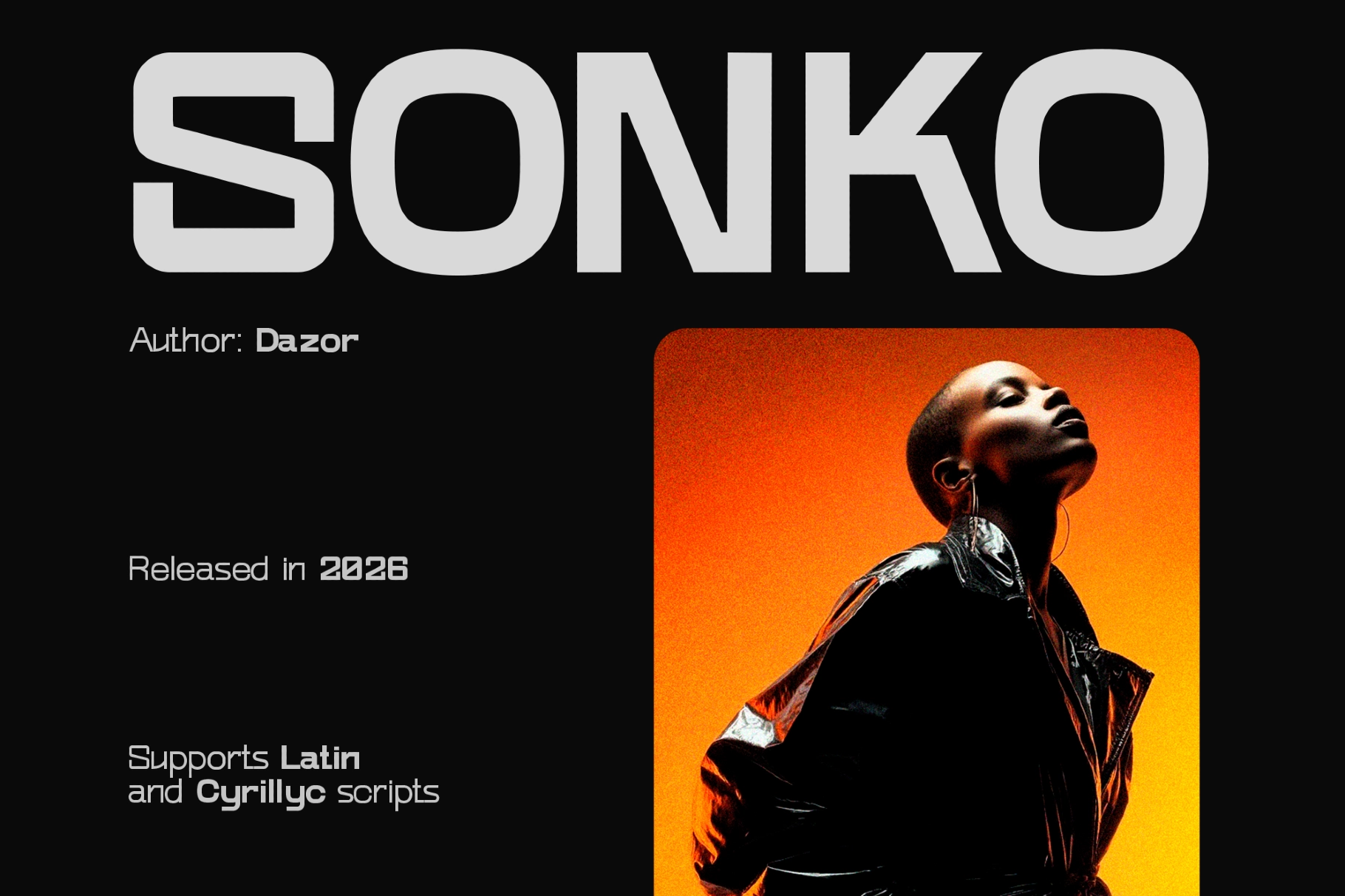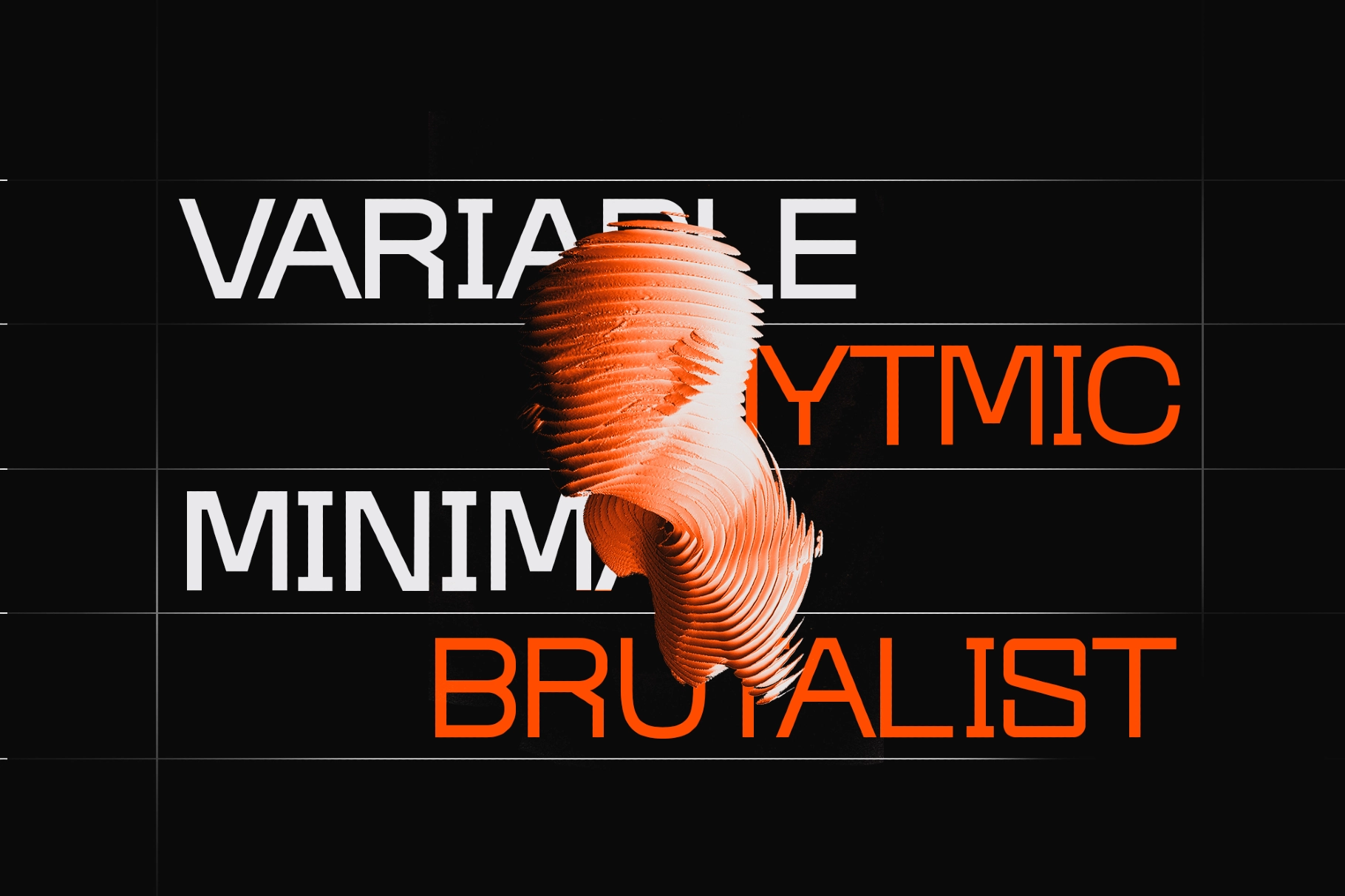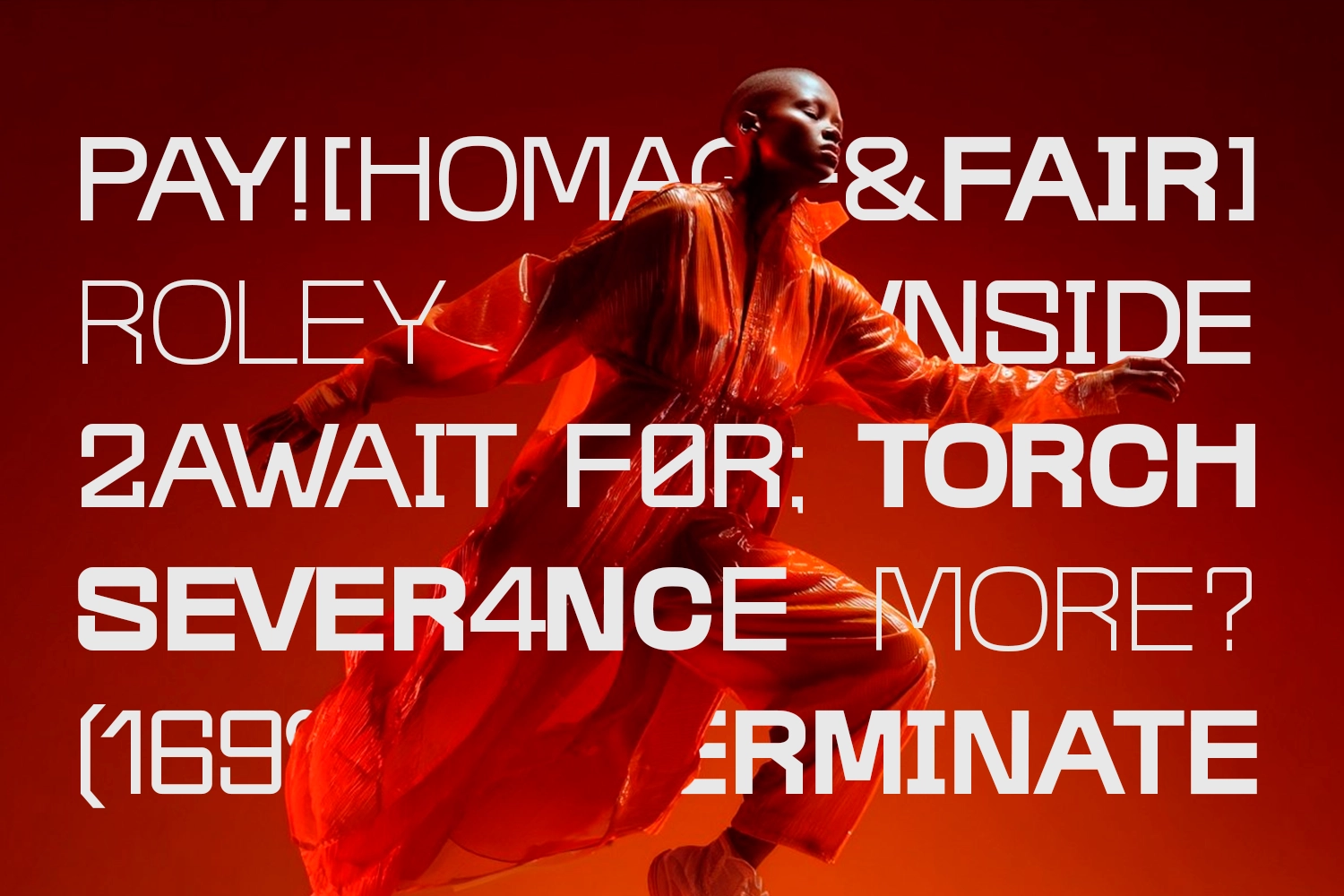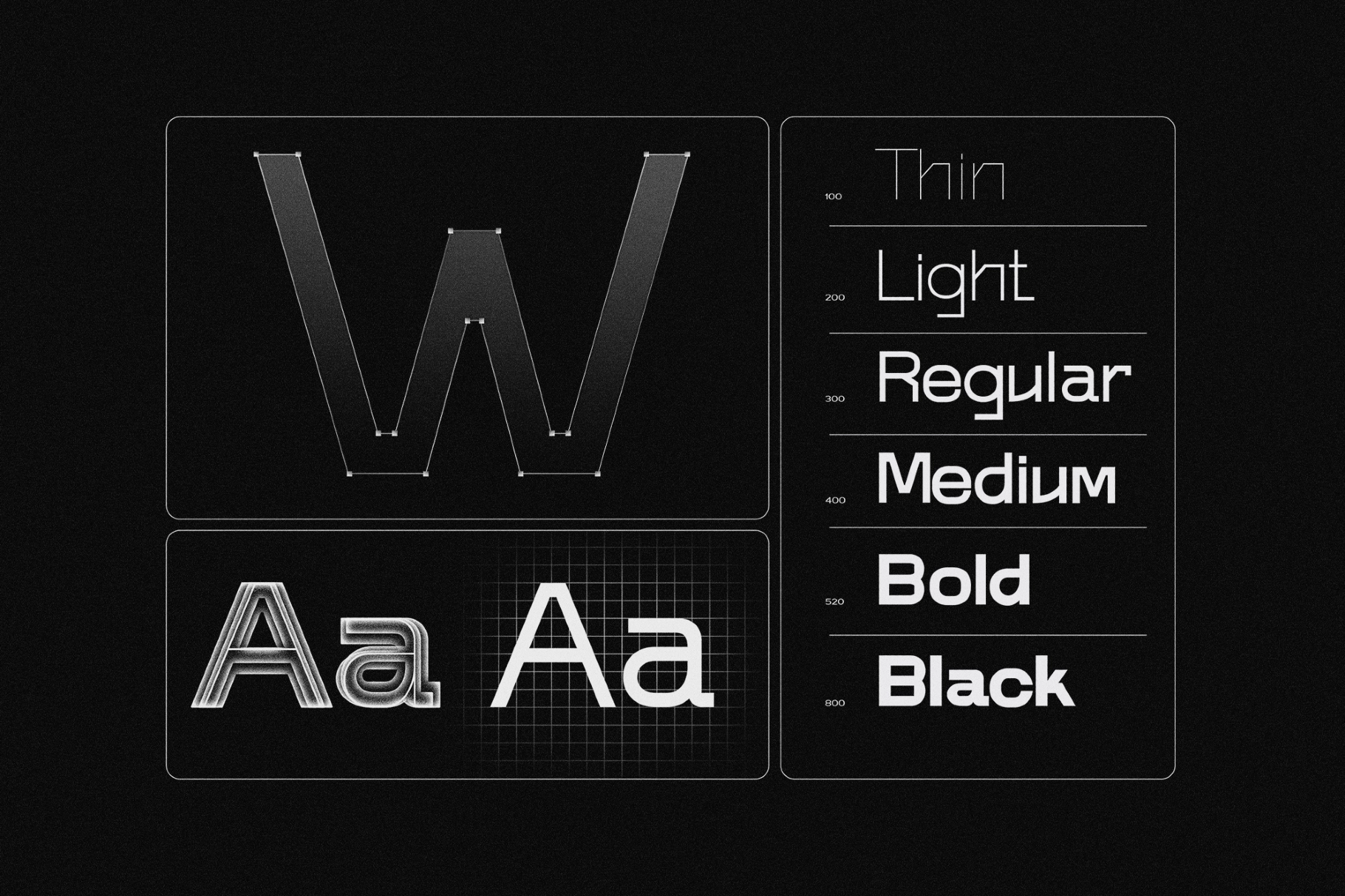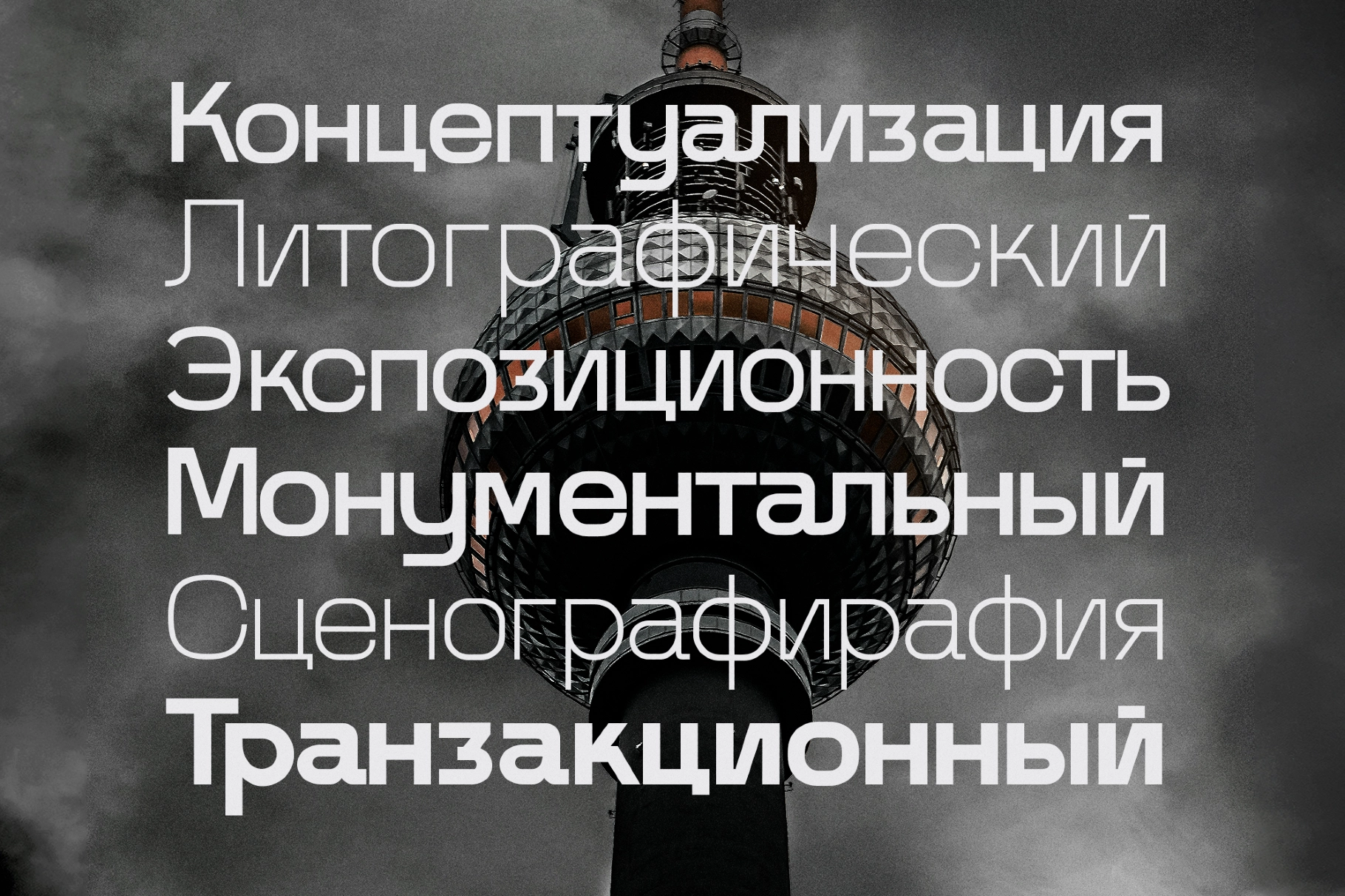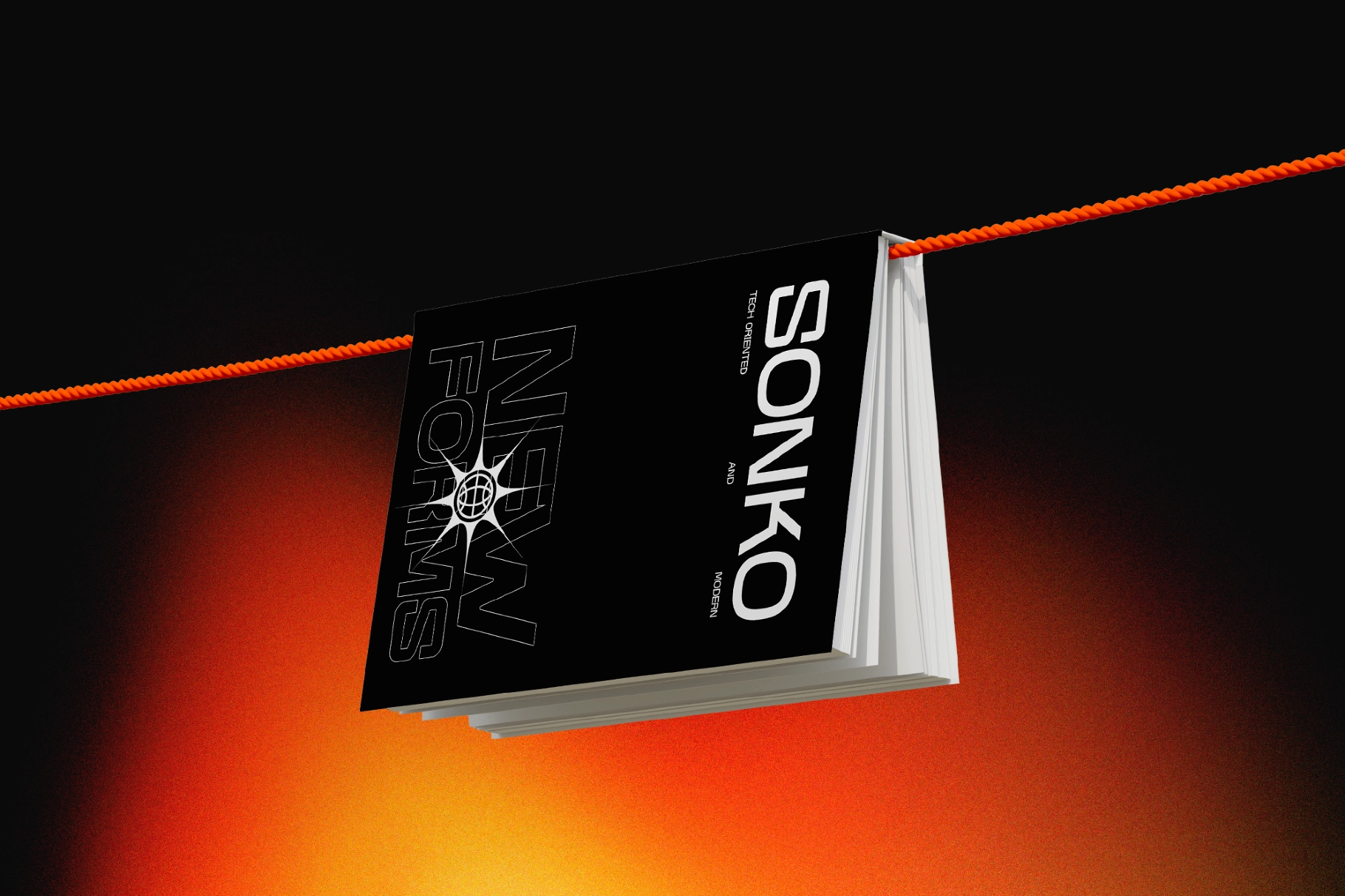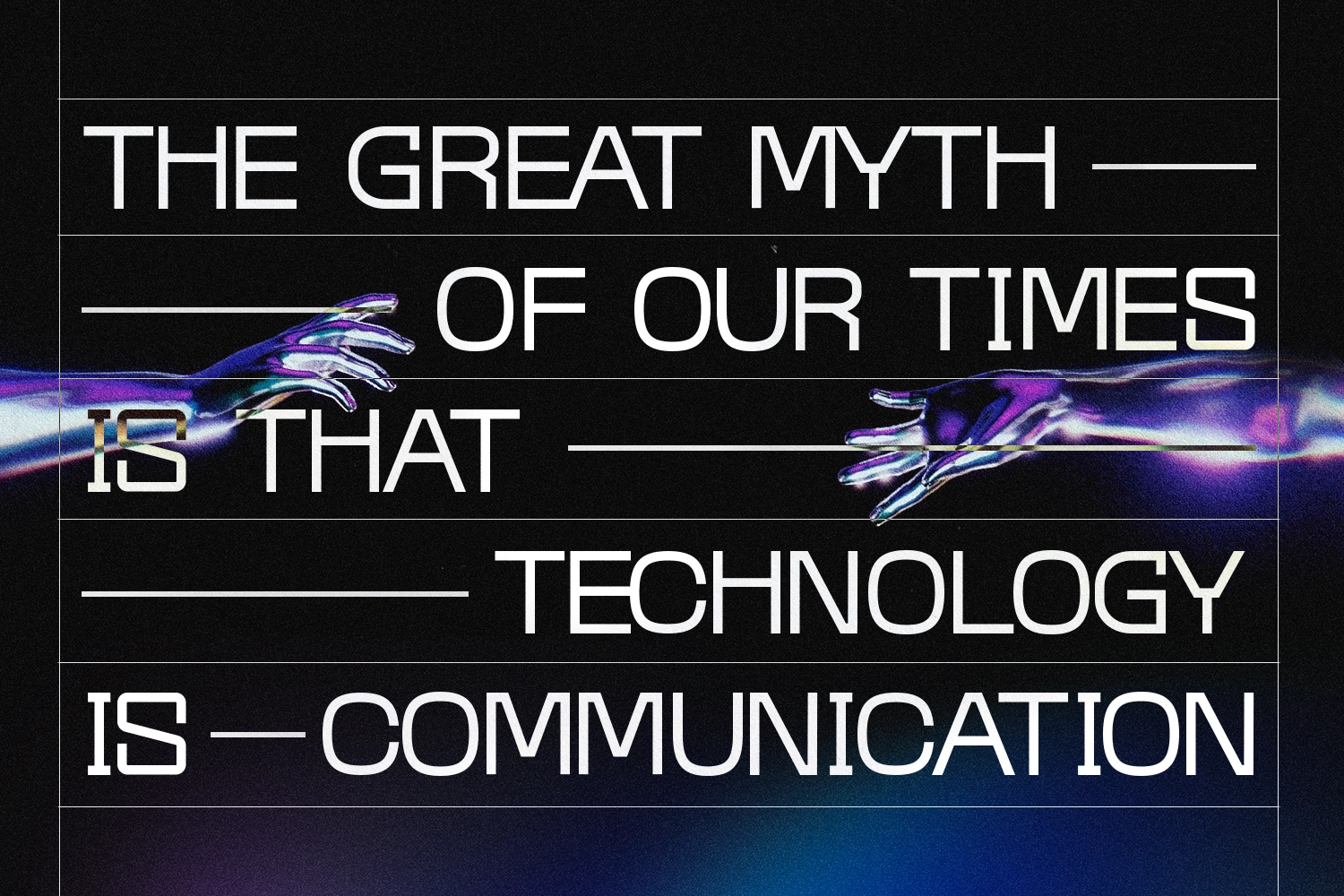
Sonko - Modern Geometric Font
Sonko - Modern Geometric Font defined by clarity, restraint, and structural precision. Its clean, slightly brutalist forms are intentionally reduced to the essentials, eliminating unnecessary decoration in favor of balance and function. The result is a confident, modern typeface with a strong architectural presence.
Built as a versatile type system, Sonko performs seamlessly across multiple weights while maintaining consistent rhythm and controlled contrast. Open shapes, stable proportions, and a neutral tone make it highly adaptable for branding, editorial layouts, UI design, packaging, and corporate communication in both digital and print environments.
- Modern geometric sans serif
- Minimal, slightly brutalist design
- Multiple weights (Thin to Black)
- Latin & Cyrillic support
- Uppercase & lowercase